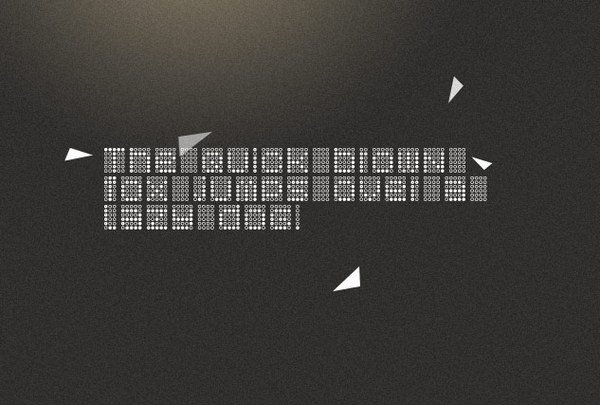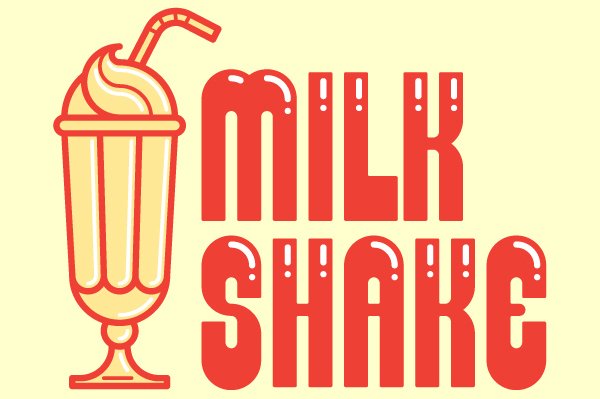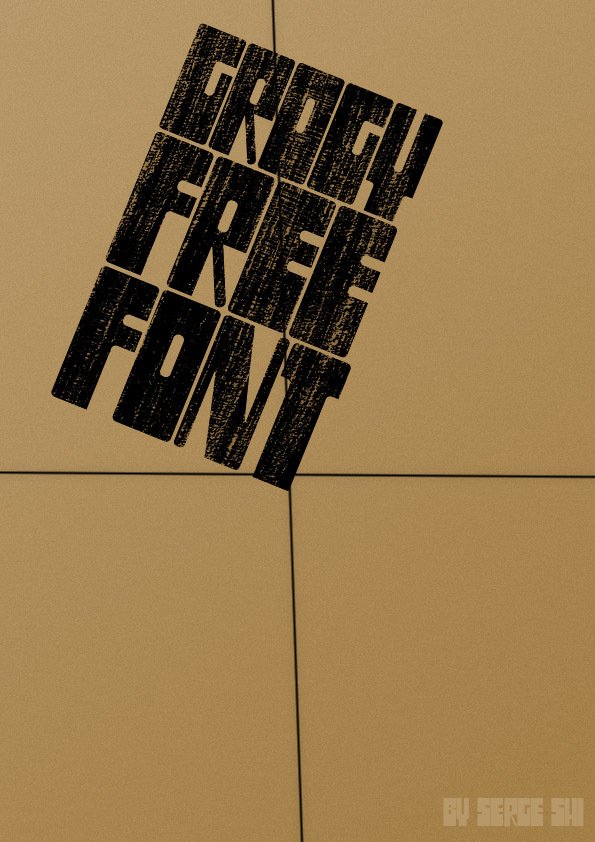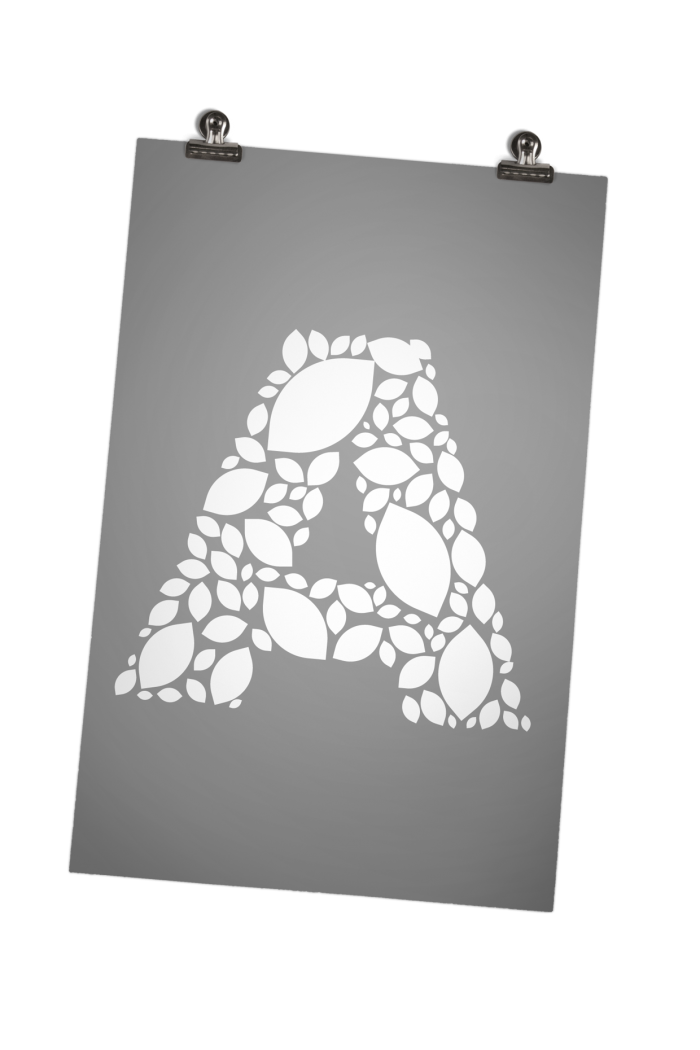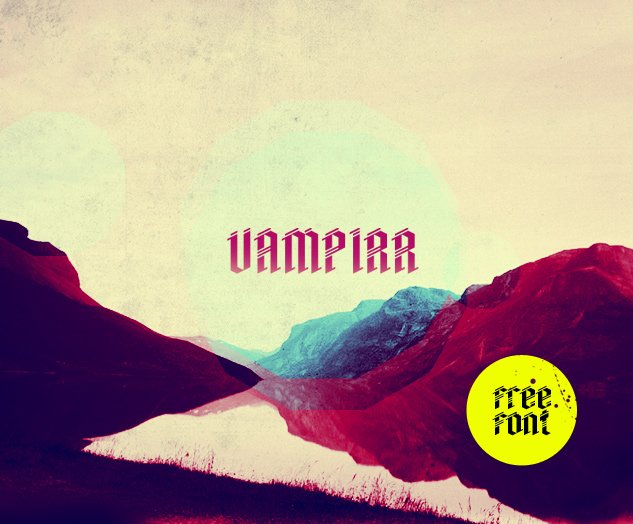
Mosaic Leaf
Author: Emptypage Design Studio
: “This is  free font created by emptypage design studio, inspired by Akzidenz Grotesk typeface.”
Vampirr
Author: Fonts of Chaos
: Vampirr is a mystic looking display font, maybe with a subtle Persian feel to it.
GRN Burgy
Description: A display type font that has really captured the look of a retro dinner.
Bond Is Dead
Author: Fonts of Chaos
: Bond is dead is a new typography experimentation by Fonts of Chaos.
Grogy
Author: Serge Shi
: A thick font very suitable for headings, or grabbing attention.